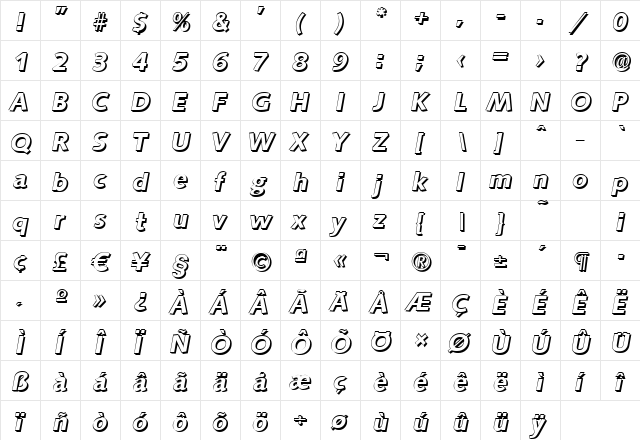
RogerBeckerShadow BoldItalic Font Preview
Design Context for RogerBeckerShadow Typeface
RogerBeckerShadow brings ornamental detail and strong personality to headlines and identities, where visual impact matters more than quiet functionality. Its italic angle brings a sense of urgency and motion to the letterforms. The heavy weight commands attention and anchors typographic hierarchies.
Font Pairing: Pair with a clean neutral sans-serif for body copy to let RogerBeckerShadow's character lead without overwhelming the composition.
Pro Tip: Treat RogerBeckerShadow as the centrepiece of your typographic hierarchy. One strong heading set in a decorative face can carry an entire layout.